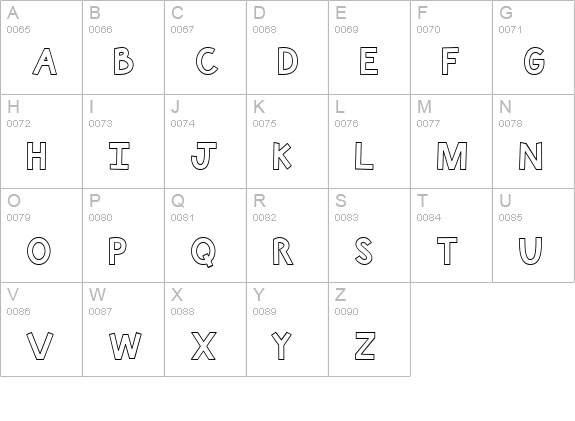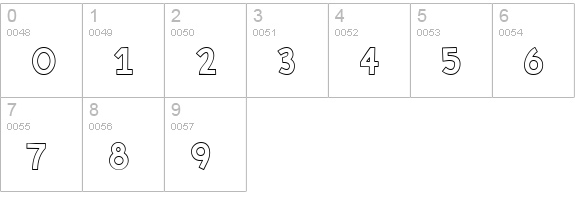
CK Block Font Details
Introducing the stunning CK Block font, a modern and versatile typeface that adds a touch of sophistication to any design project. With its bold and stylish appearance, CK Block is perfect for creating eye-catching headlines, branding materials, posters, and more. What sets CK Block font apart is not just its striking aesthetic appeal, but also the fact that it is available for free download at FontsMarket.com. This means that you can easily incorporate this beautiful typeface into your projects without any cost, making it a valuable asset for both professionals and enthusiasts alike. Whether you're working on a graphic design project, website, or marketing materials, CK Block font is sure to make a lasting impression. Its clean lines, distinct letterforms, and overall elegance make it a must-have font for anyone looking to elevate their design work. Download CK Block font today and take your creations to the next level!